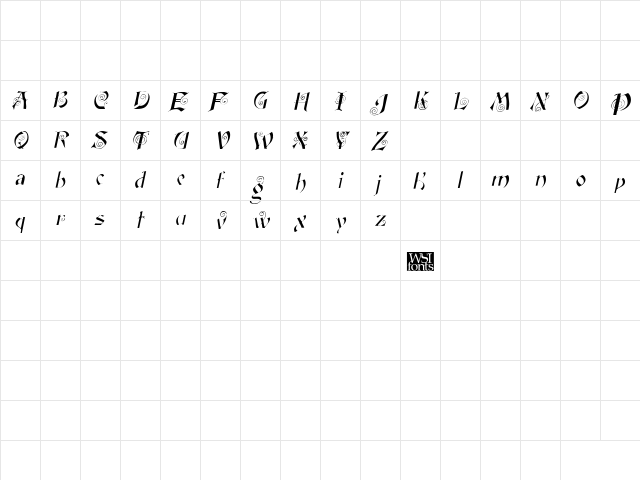
FairyScrollDisplay Italic
Design Context for FairyScrollDisplay Typeface
FairyScrollDisplay is built around its visual character rather than neutral utility — its distinctive forms are designed to make an impression at display sizes. The dynamic lean of this cut emphasises speed and emphasis in any layout.
Font Pairing: Pair with a clean neutral sans-serif for body copy to let FairyScrollDisplay's character lead without overwhelming the composition.
Pro Tip: Use FairyScrollDisplay exclusively at display sizes — it was designed to be seen, not read at length. Let a neutral companion handle body copy.